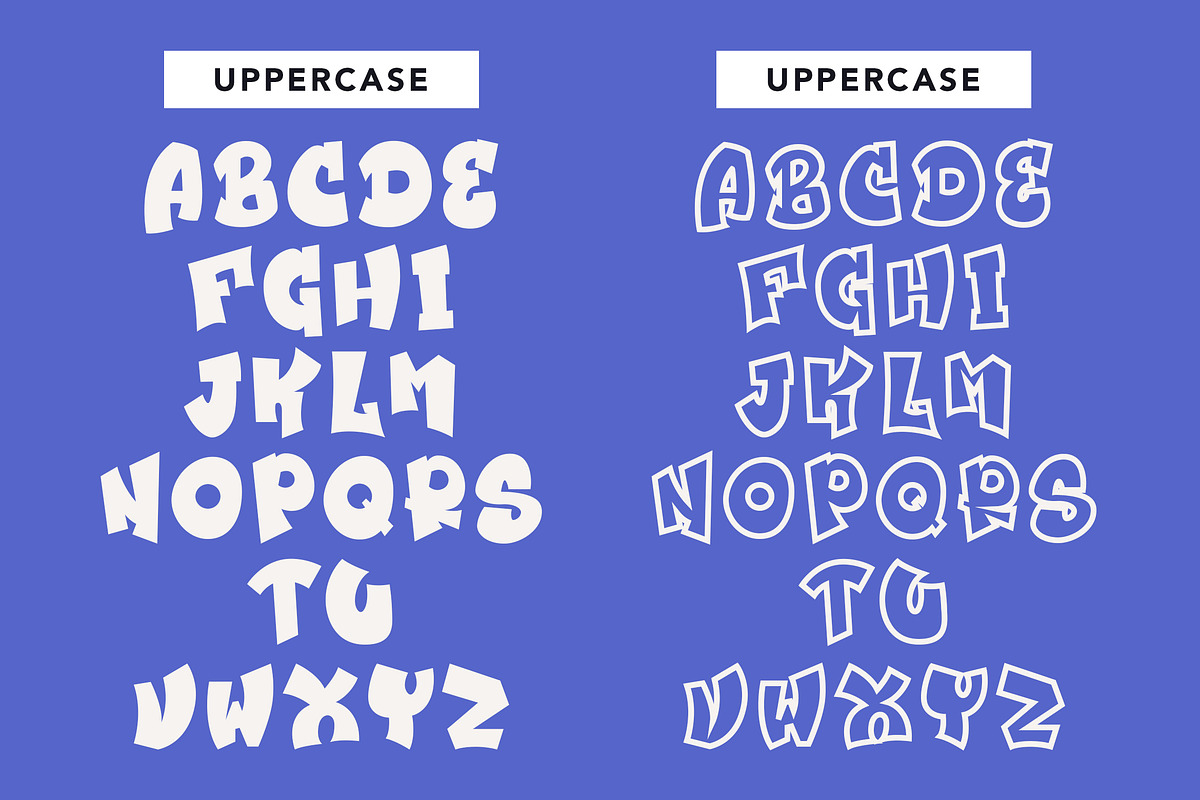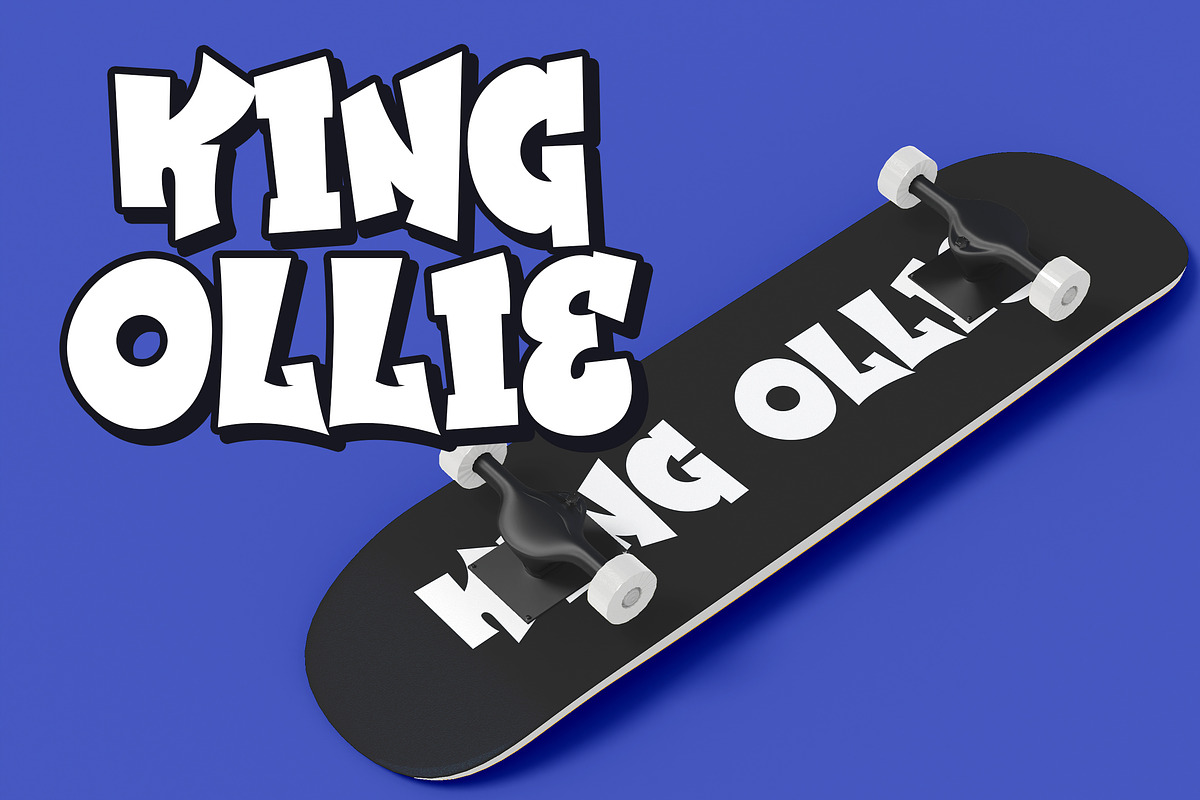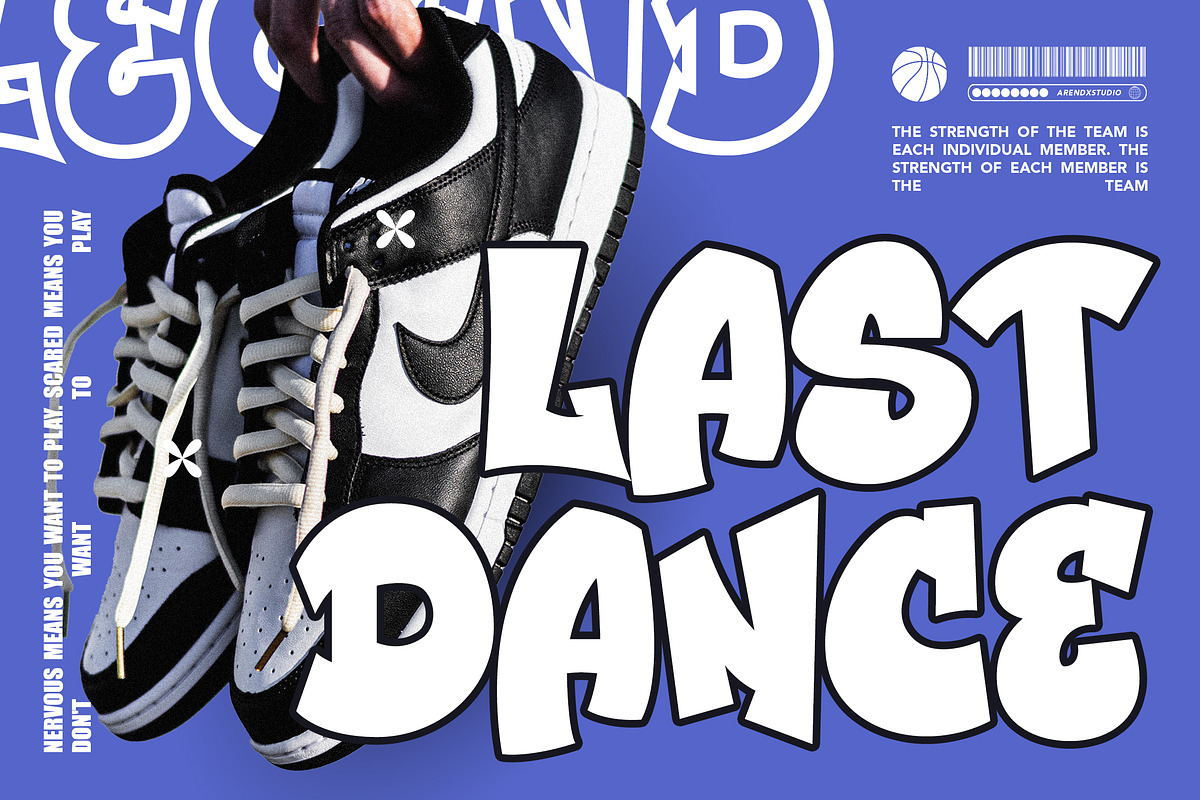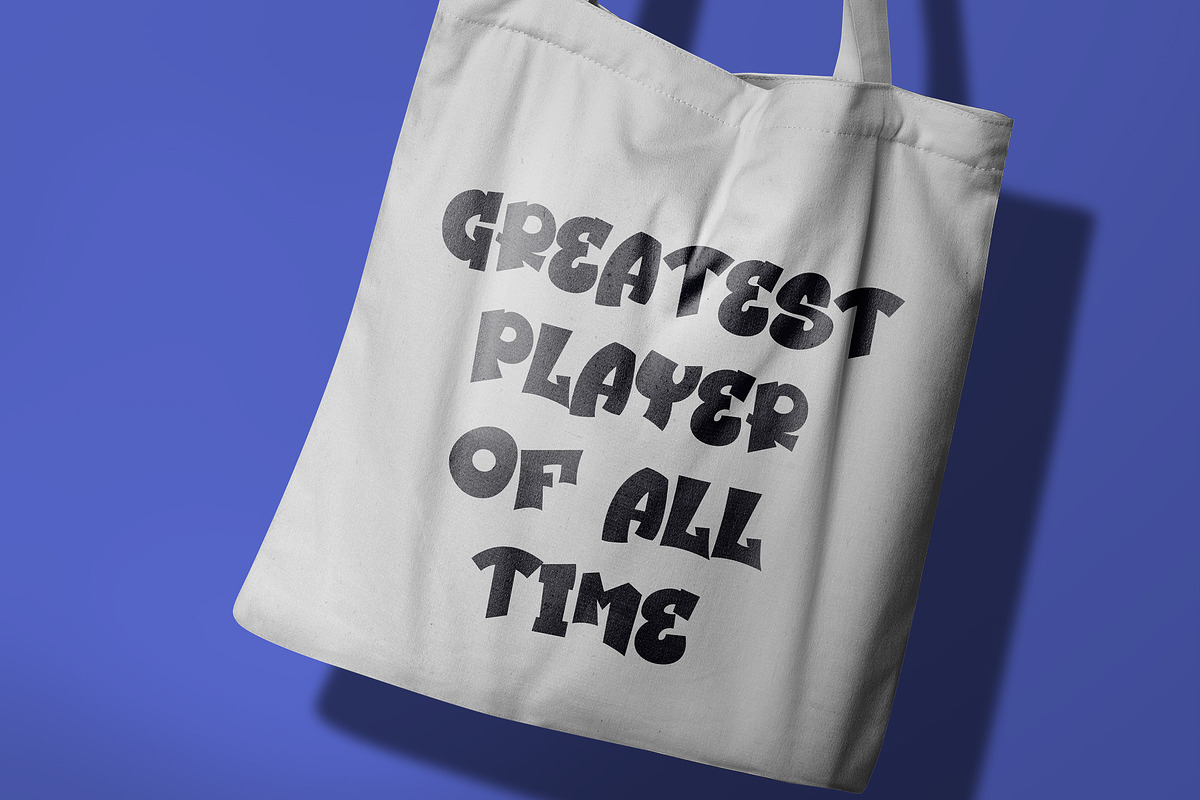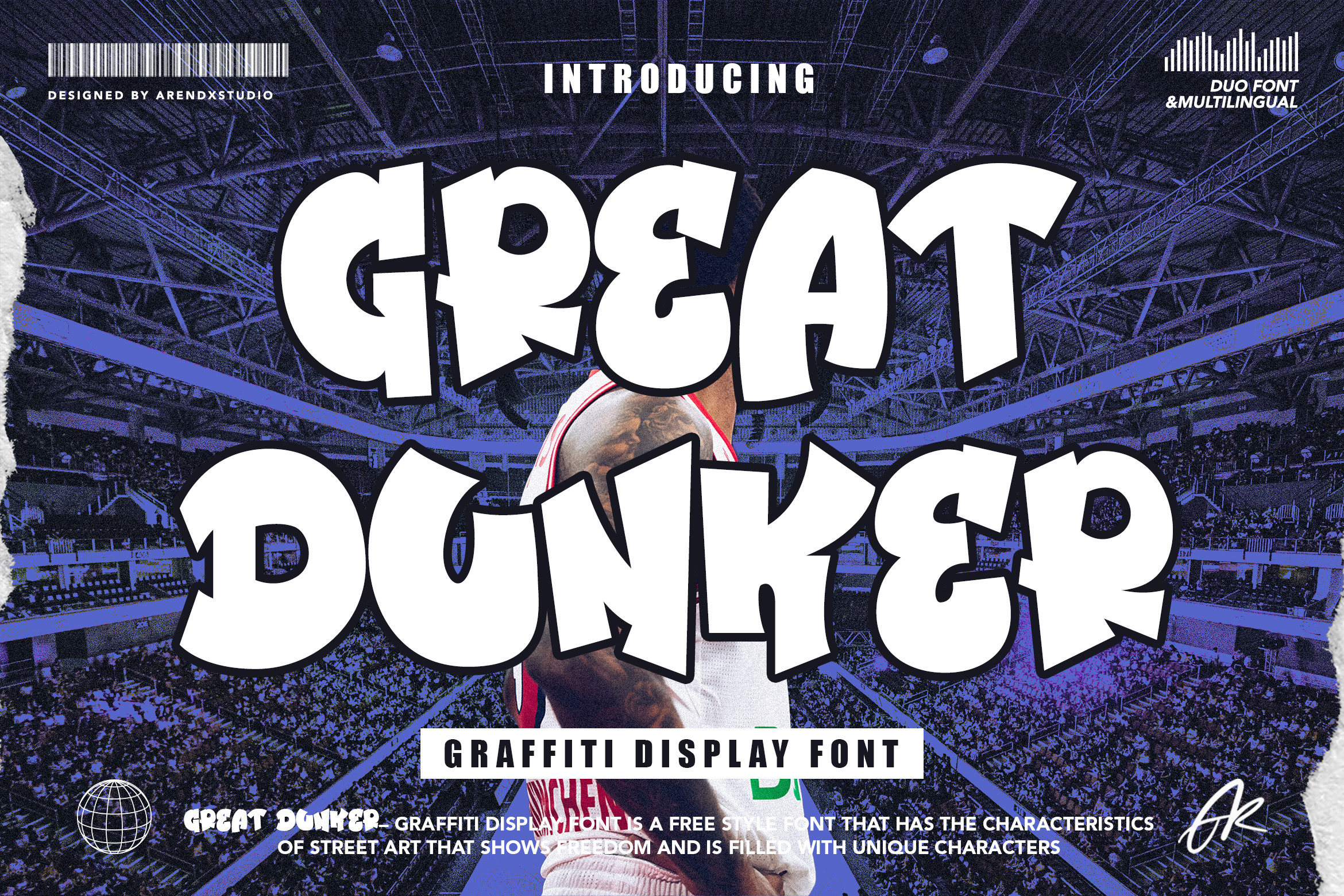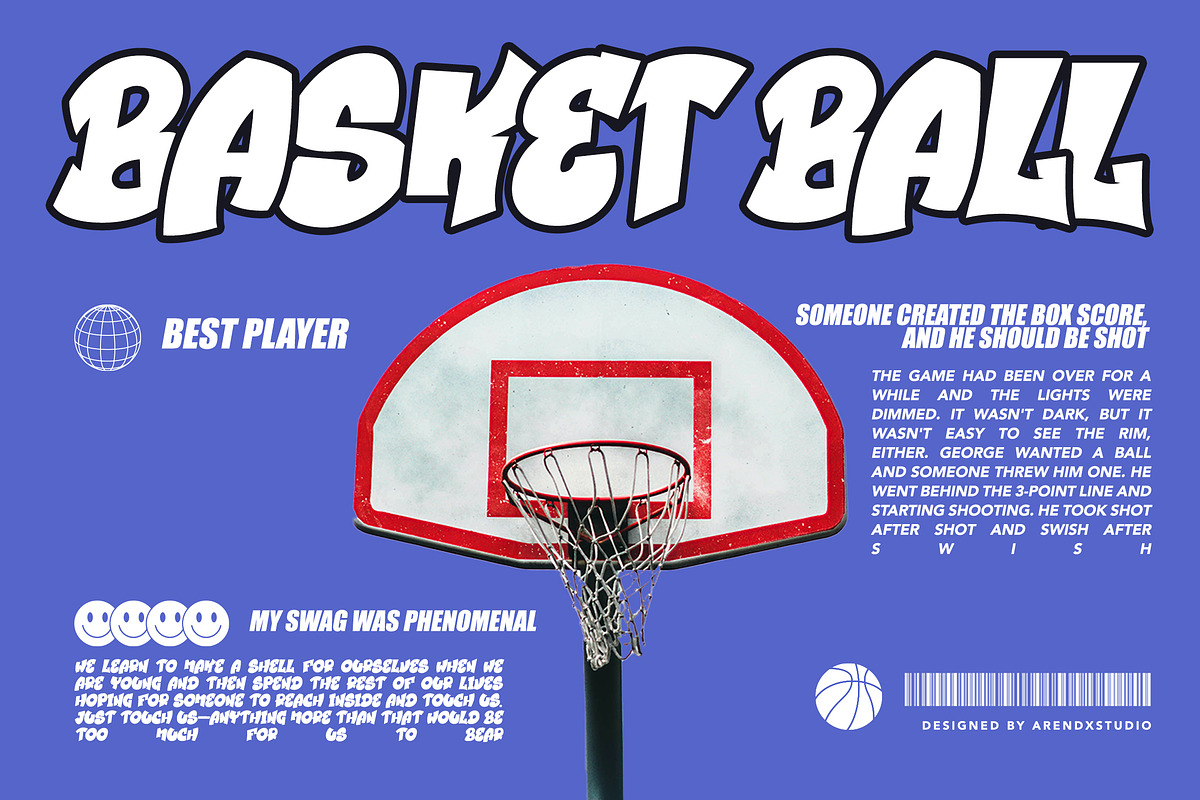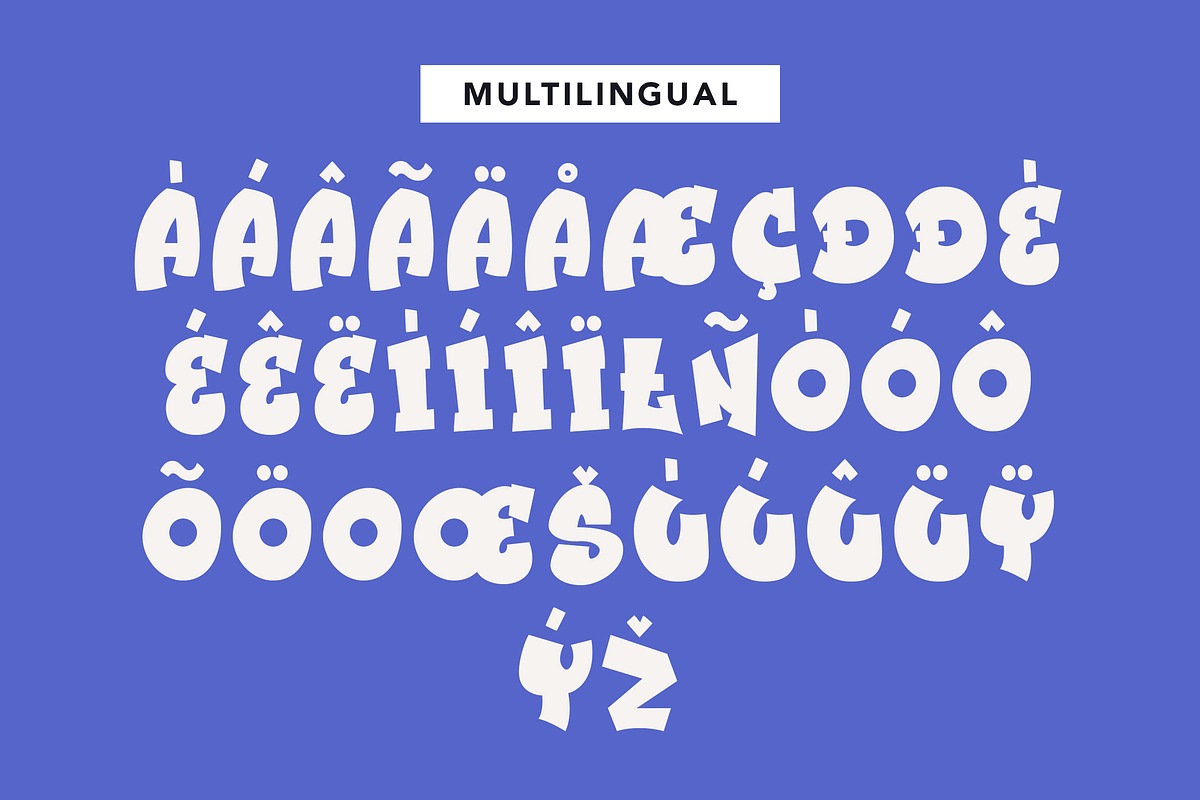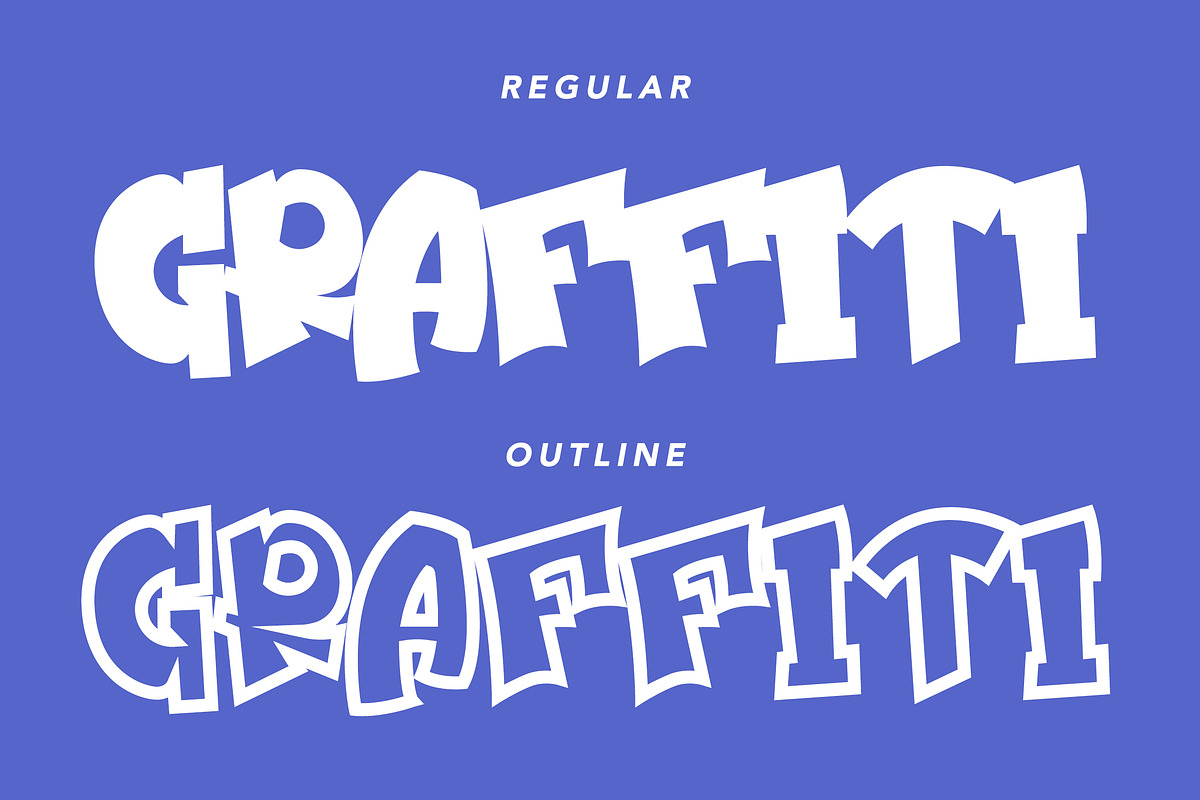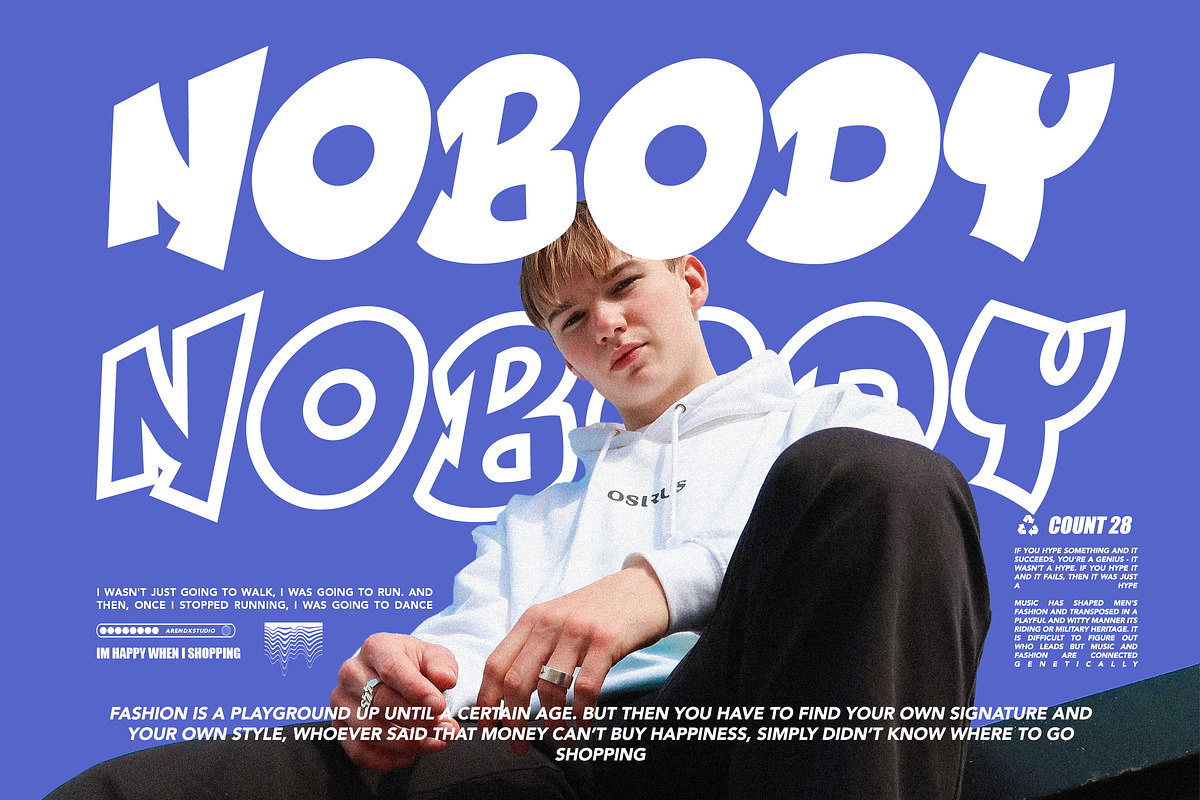
Great Dunker Graffiti Font
Great Dunker Graffiti Font is a free style font that has the characteristics of street art that shows freedom and is filled with unique characters
Graffiti fonts are typographical styles that are inspired by street art and graffiti culture. These fonts are characterized by bold, stylized lettering with a strong urban influence. They often feature exaggerated lines, distorted shapes, and drips or splatters to create a sense of fluidity and movement.
Graffiti fonts can be used for a variety of purposes, from creating eye-catching posters and flyers to designing unique logos and branding materials. They are popular among graphic designers, street artists, and anyone who wants to add a touch of edginess or rebellion to their designs.
There are several different types of graffiti fonts, including bubble letters, block letters, wildstyle, and tag styles. Bubble letters are rounded, exaggerated letters that are often filled with a gradient or solid color. Block letters are more simple, with straight lines and a bold, solid appearance. Wildstyle fonts are more complex, with intricate letter shapes and designs that are often difficult to read. Tag style fonts are inspired by the signature tags of graffiti artists, with a signature-style lettering that is often compact and difficult to read.
Overall, graffiti fonts are a powerful way to add a dynamic, urban edge to any design project. They are versatile, creative, and make a bold statement, making them a popular choice for designers and artists looking to push boundaries and create something truly unique.